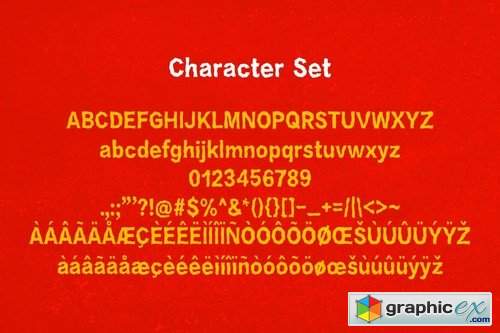
Crazygon - Display Typeface
Introducing Crazygon Display typeface. This font is best used for your design project that has the concept of fun, dinamic and elegant. Can also be applied to the design of a logotype, header website, wedding logo, makes some lettering a quote, T-shirt design etc.